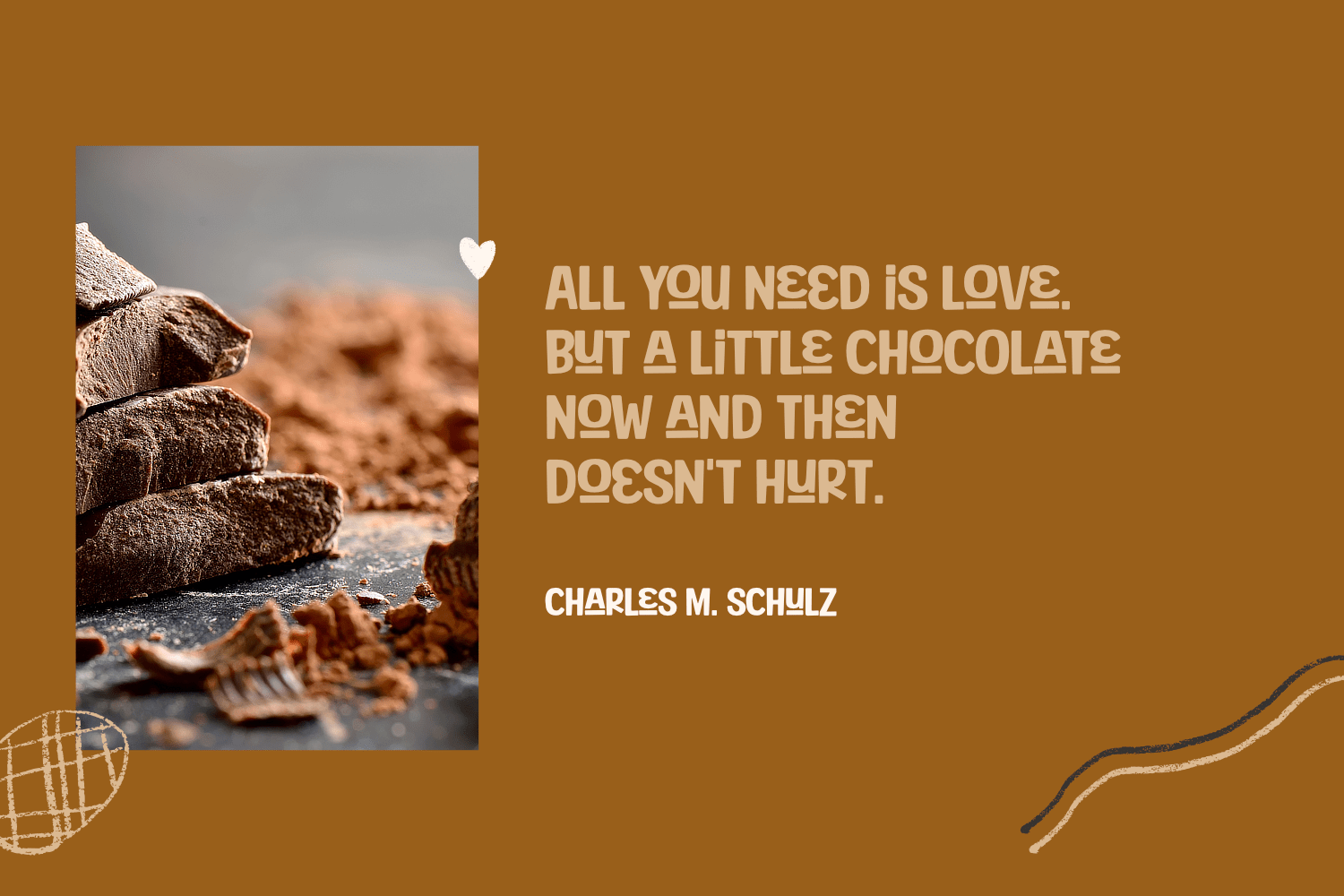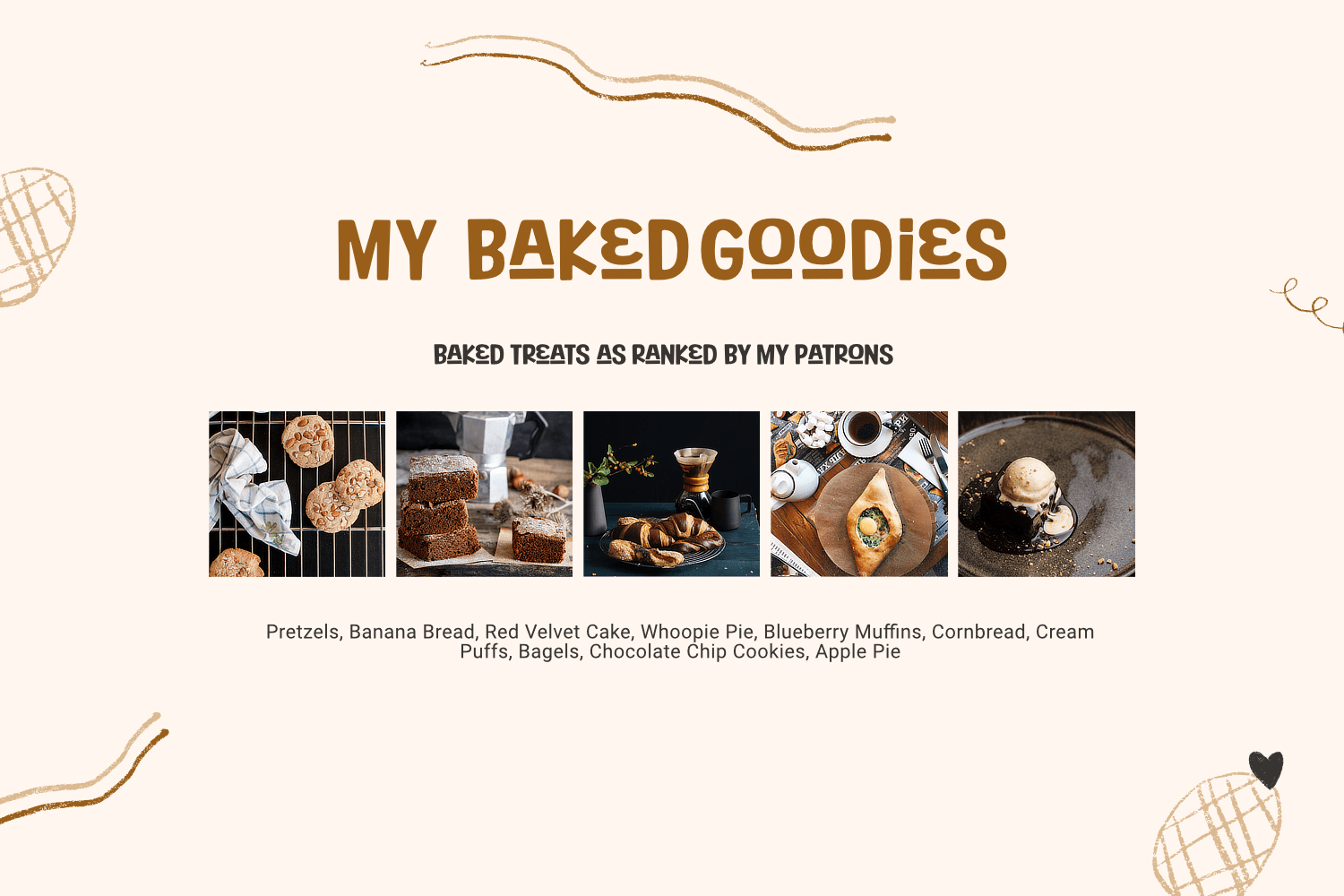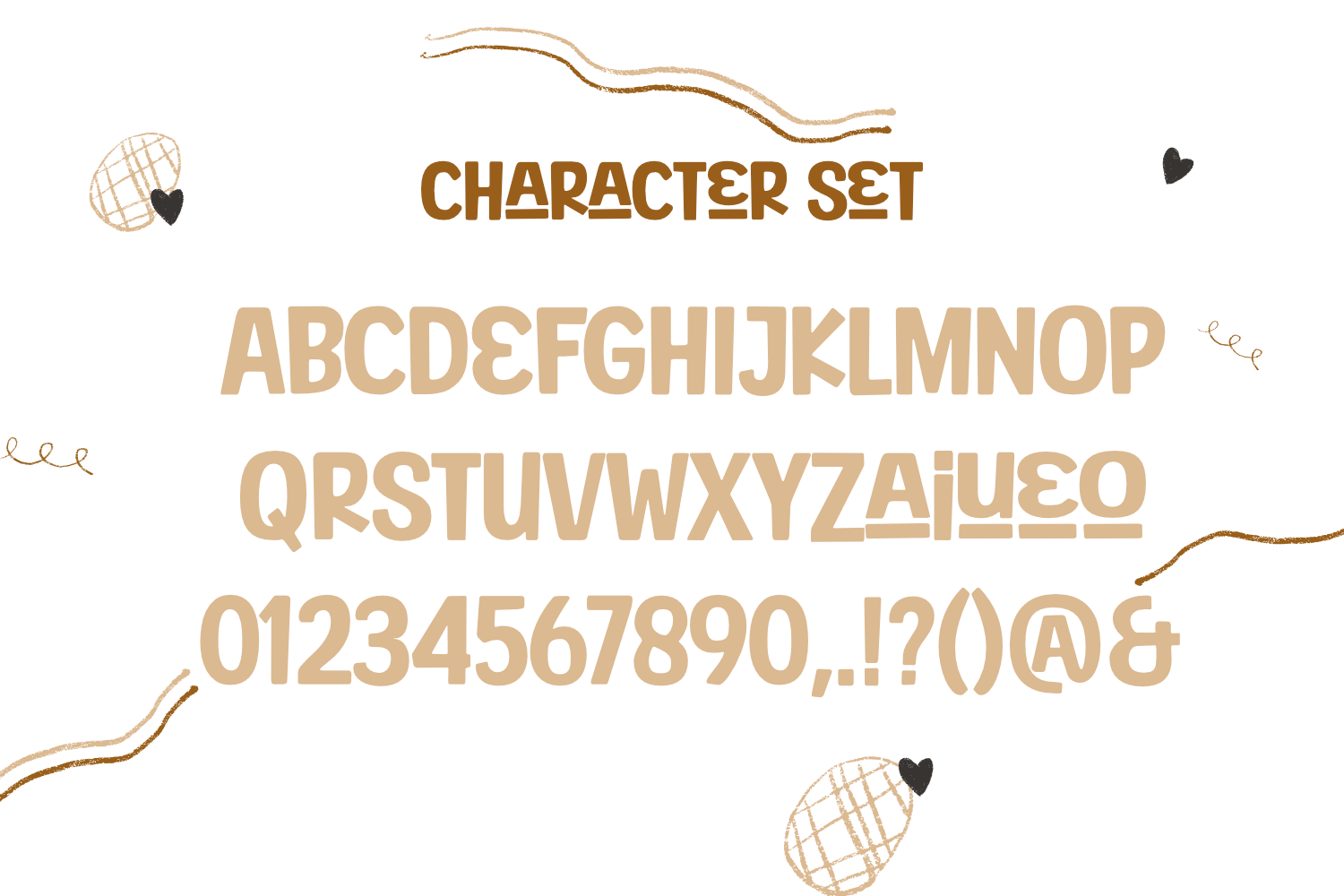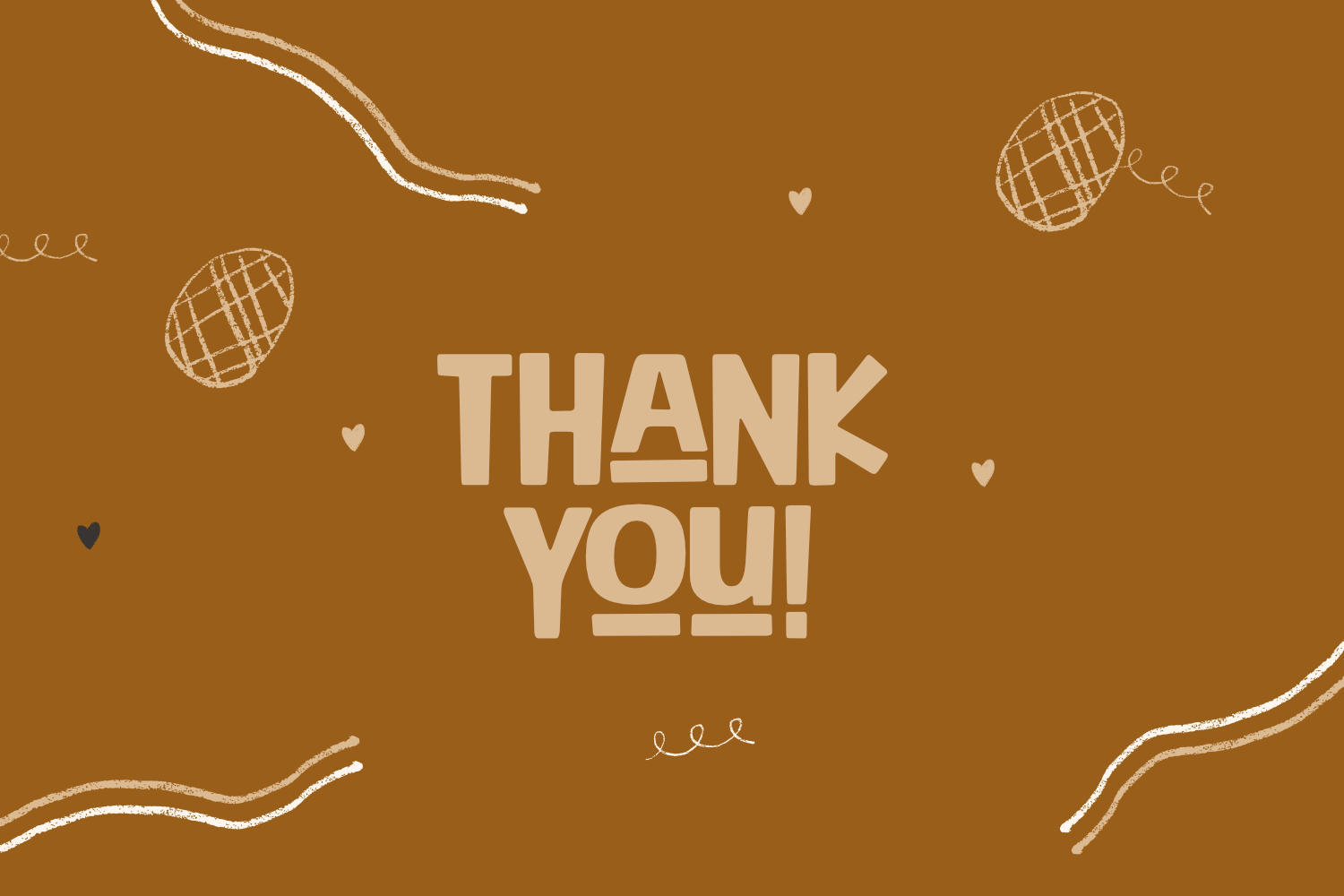
Bakery Goods Display Font
This is a cool, vintage styled and adaptable display font. This original look will appeal to a wide range of crafty ideas, from letterheads and titles, to stationery.